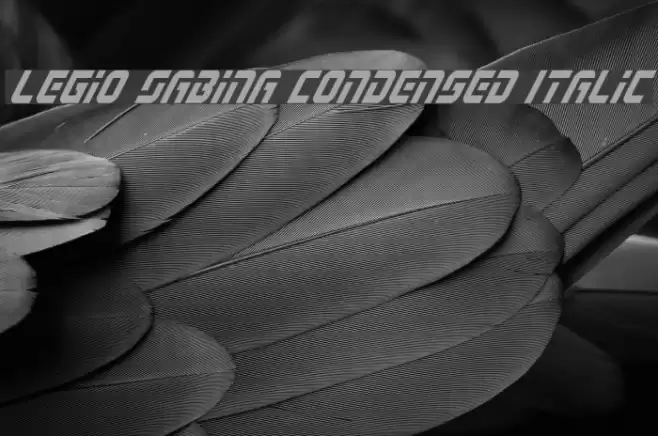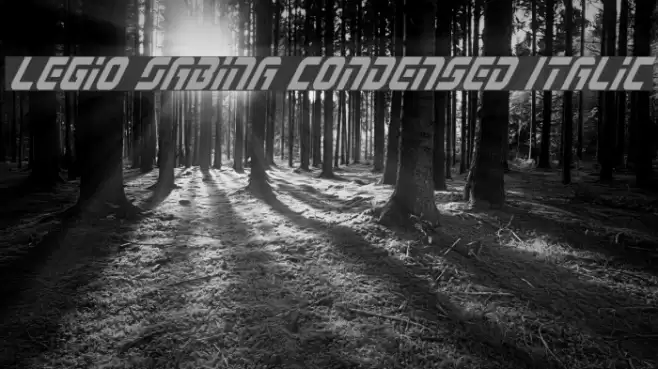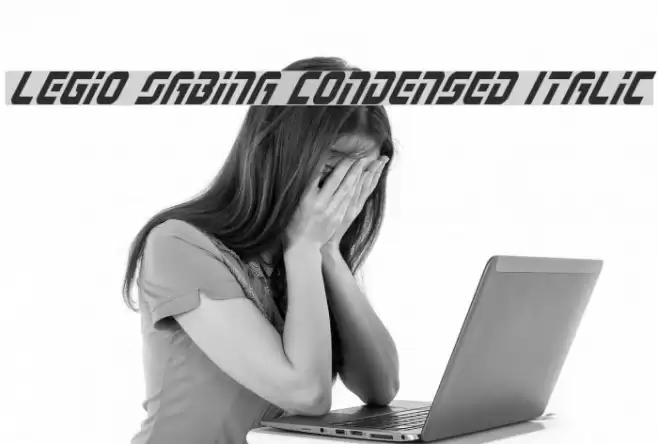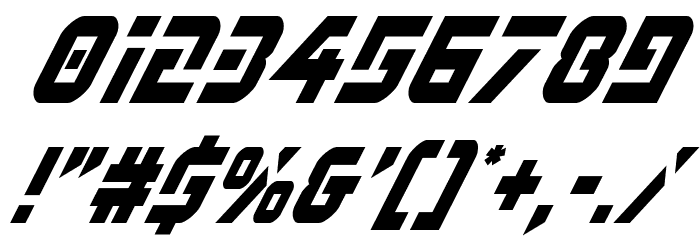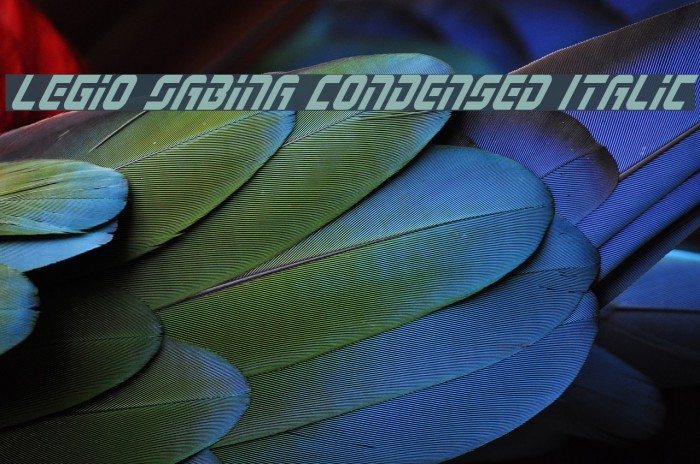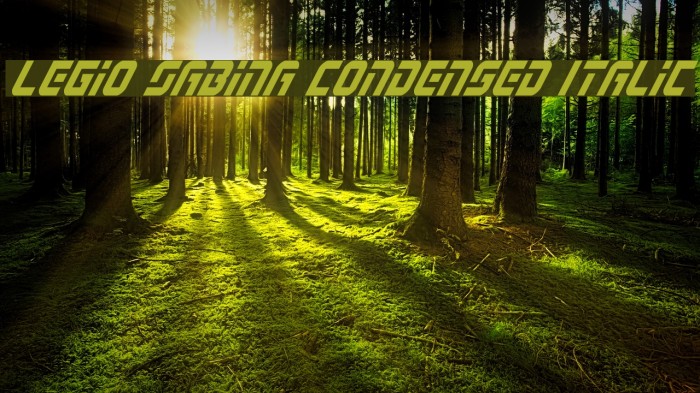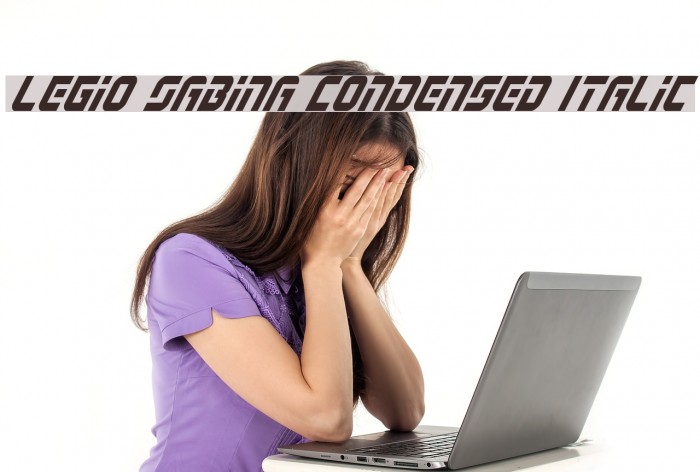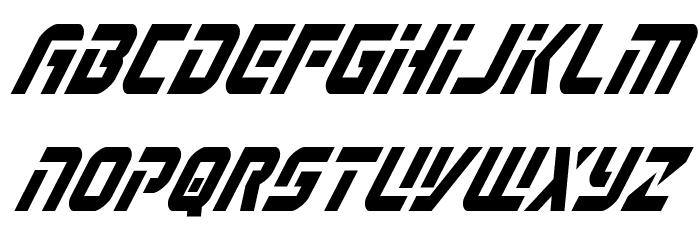
Legio Sabina Condensed Italic Font
Legio Sabina Condensed Italic Description
This font features a bold, italicized style with a condensed width, giving it a dynamic and modern appearance. The characters are sharply angled, creating a sense of movement and urgency. The uppercase and lowercase letters maintain a consistent slant, enhancing the italic effect. The numerals and special characters follow the same stylistic cues, ensuring uniformity across all glyphs. The font's design is sleek and futuristic, making it suitable for projects that require a strong visual impact. Its condensed form allows for efficient use of space, making it ideal for headlines and titles where space is limited.
A bold, italic, and condensed font with a modern, dynamic style from Uncategorized fonts.
- Proposed Projects: Ideal for sports branding, tech logos, dynamic posters, and futuristic designs.